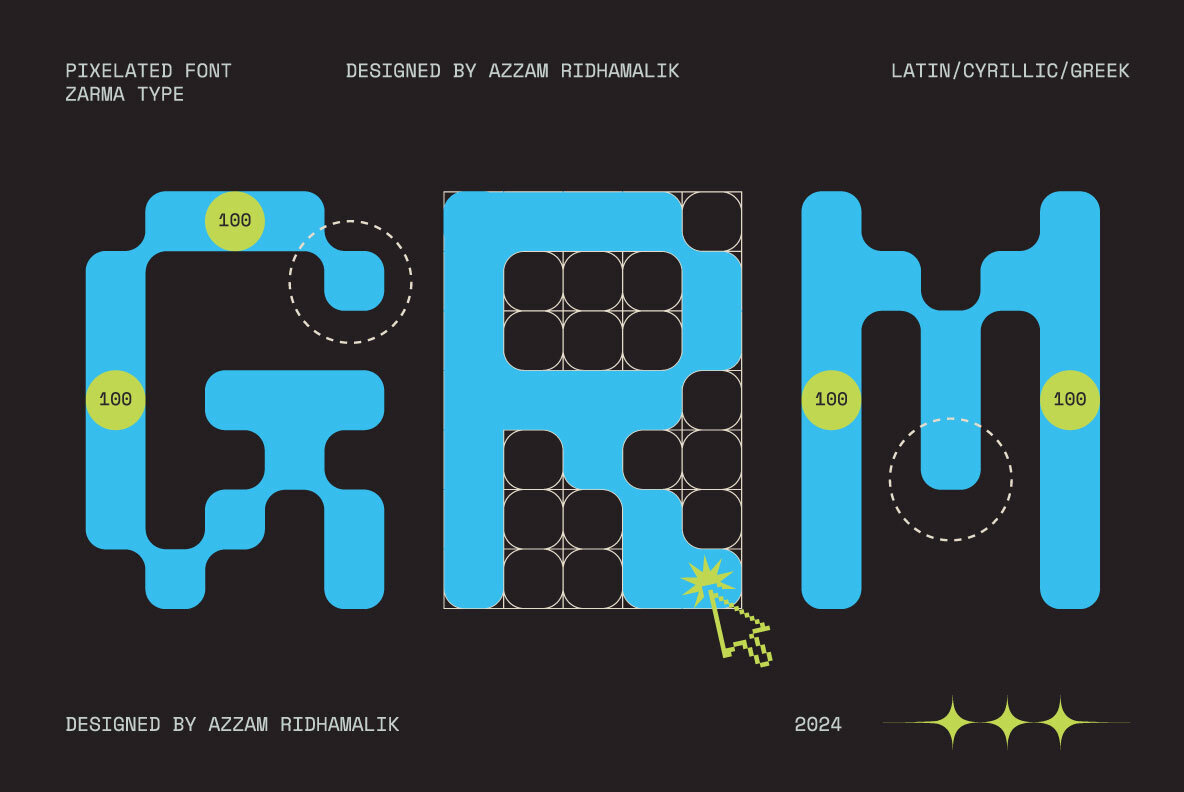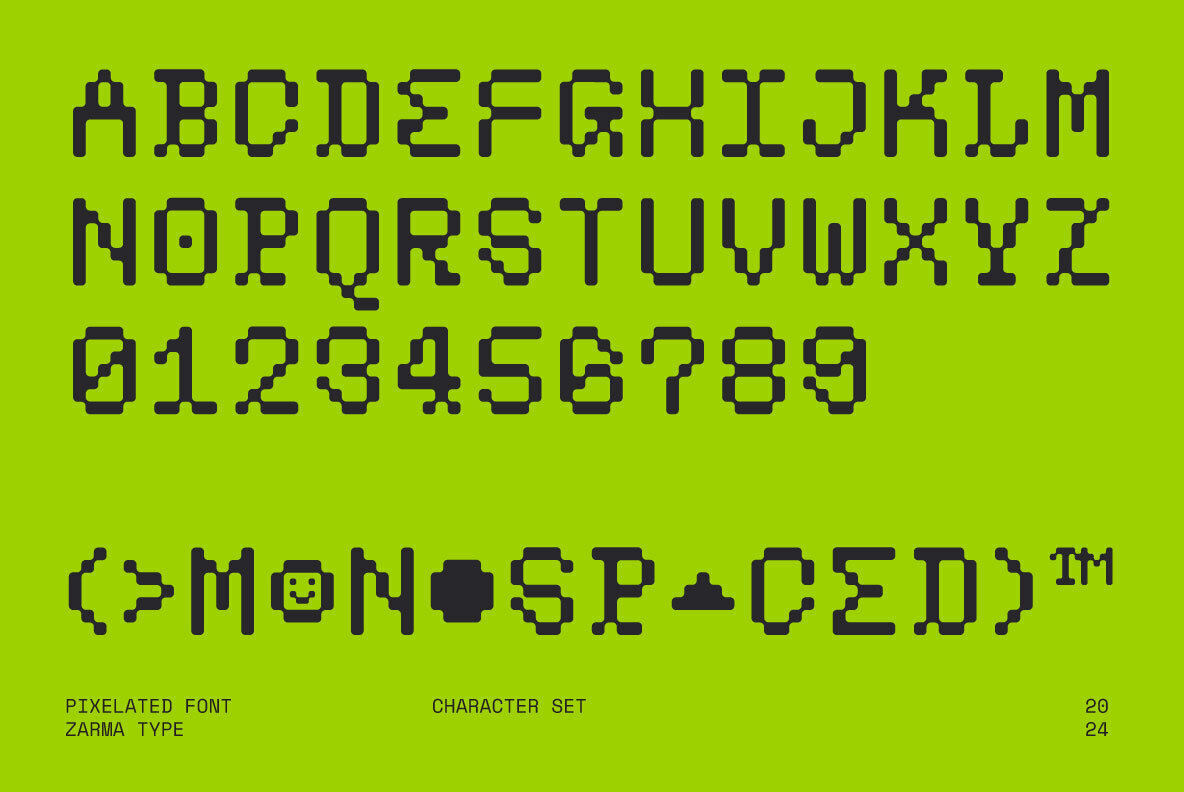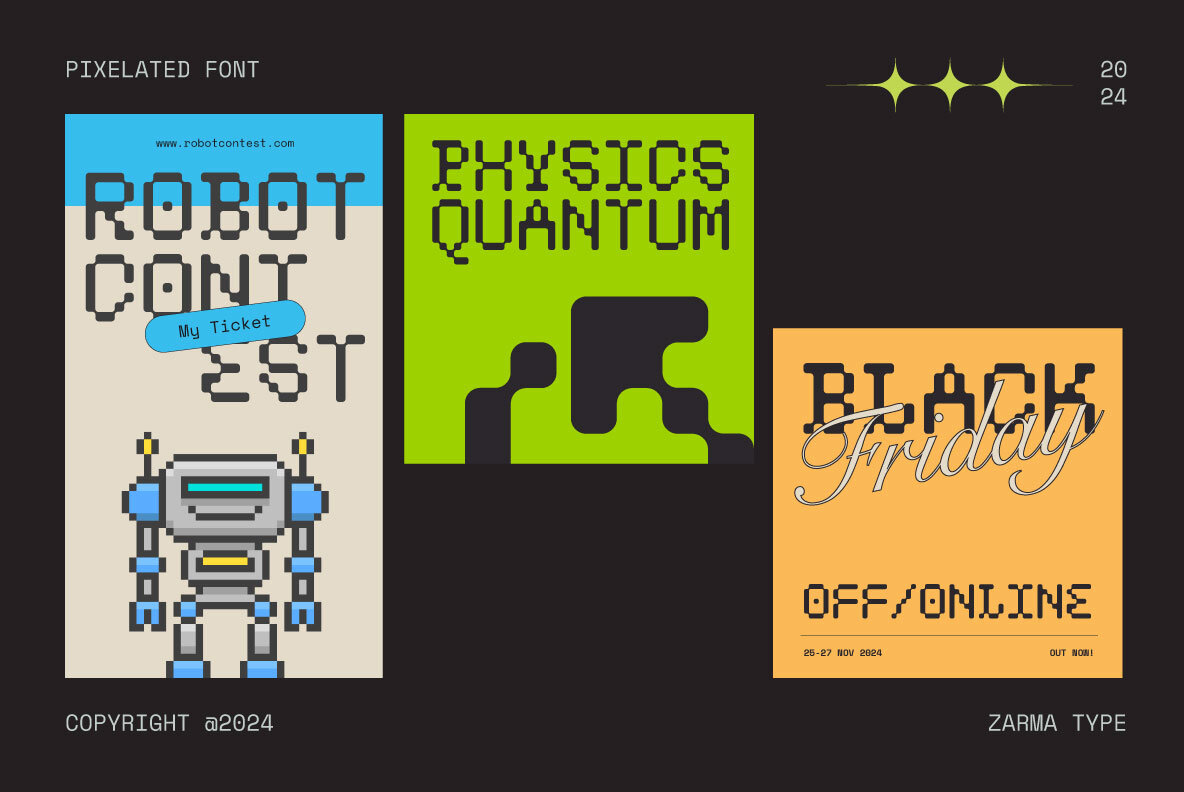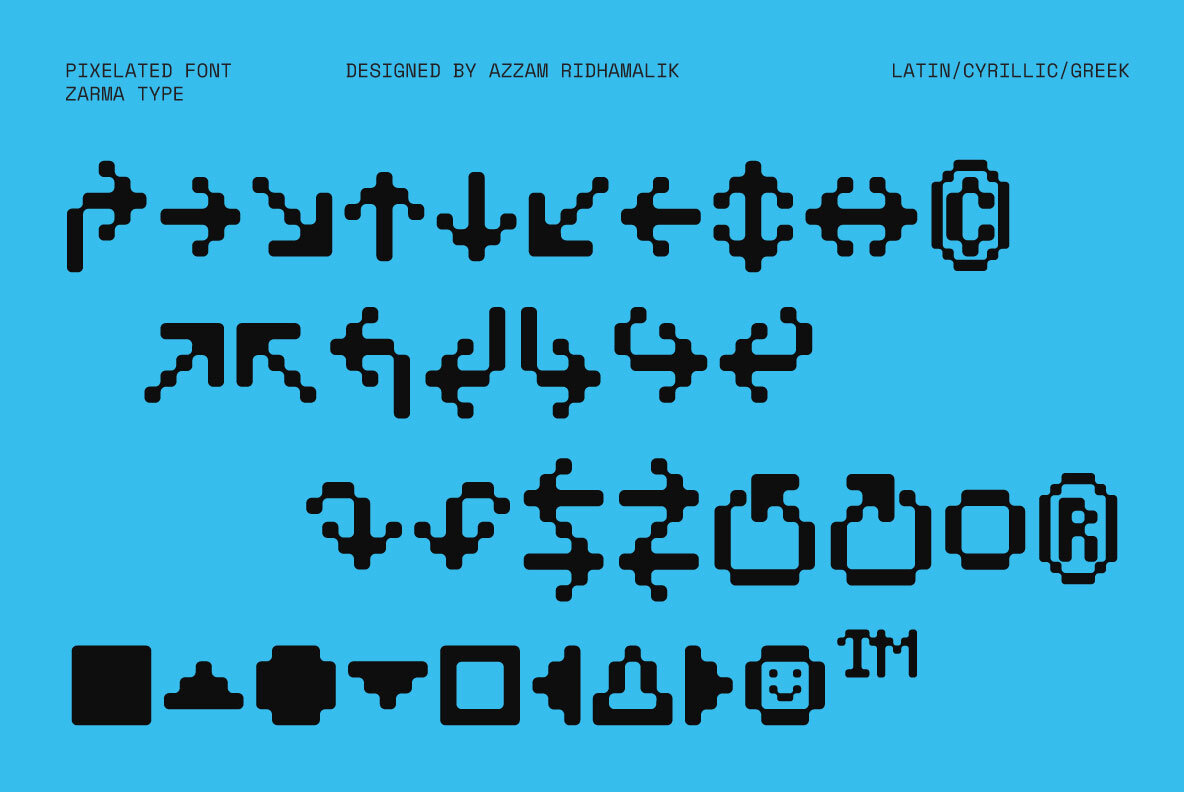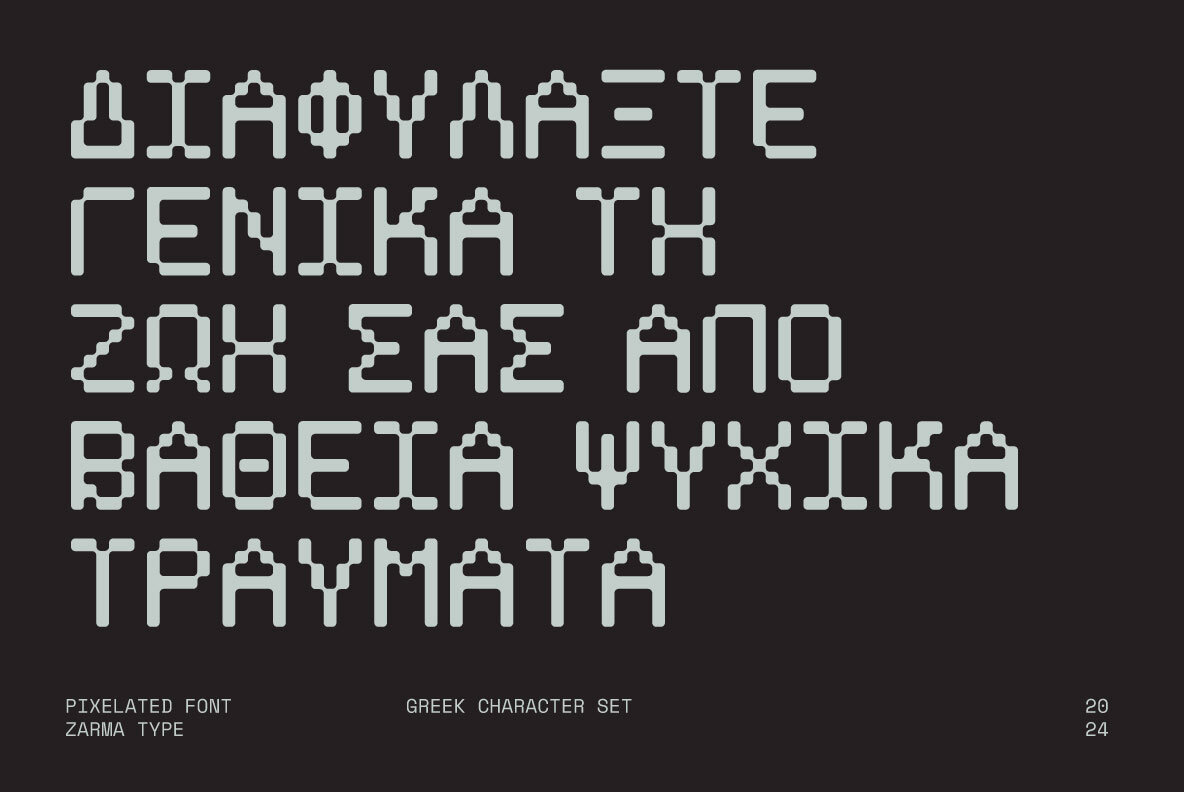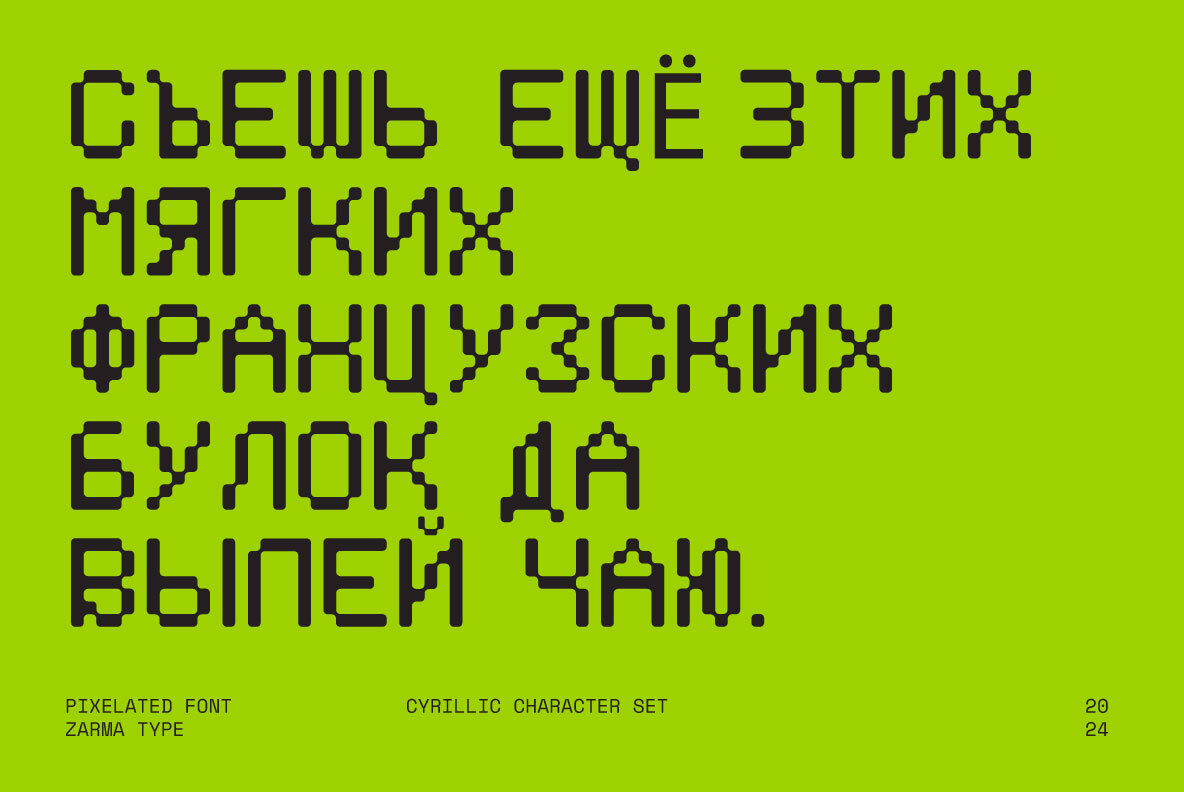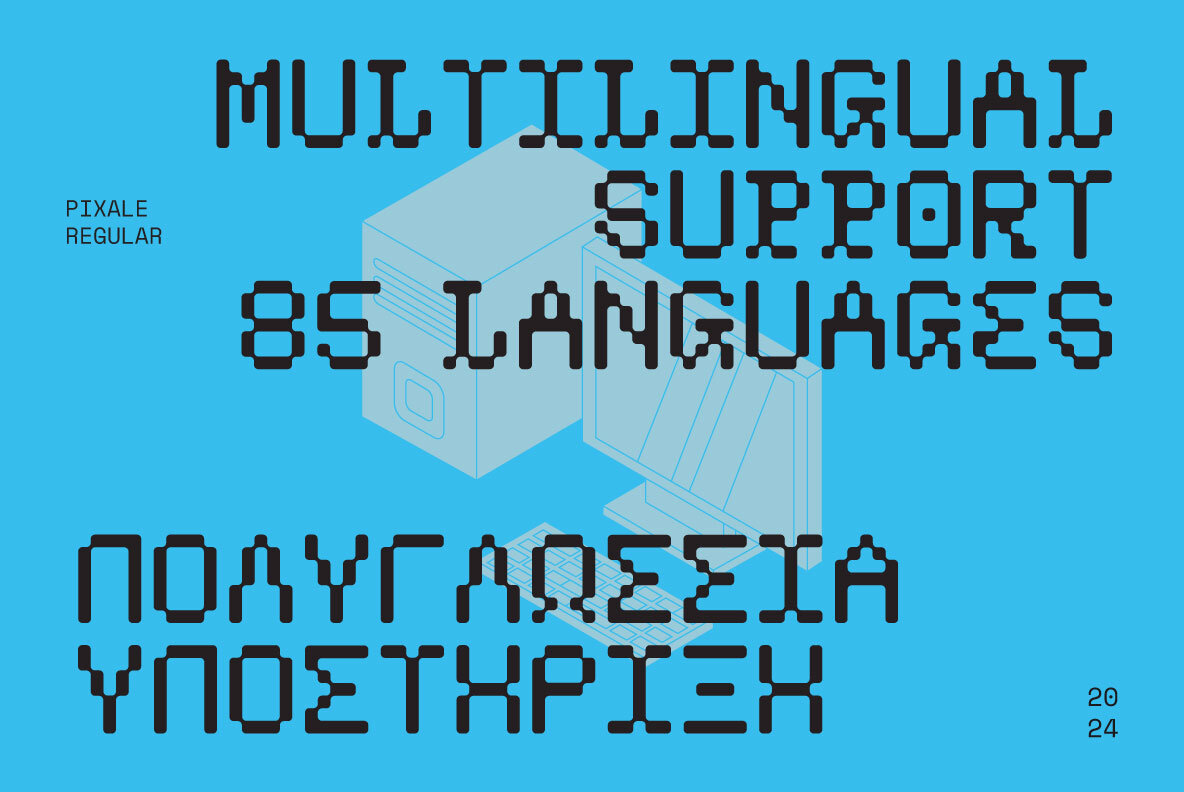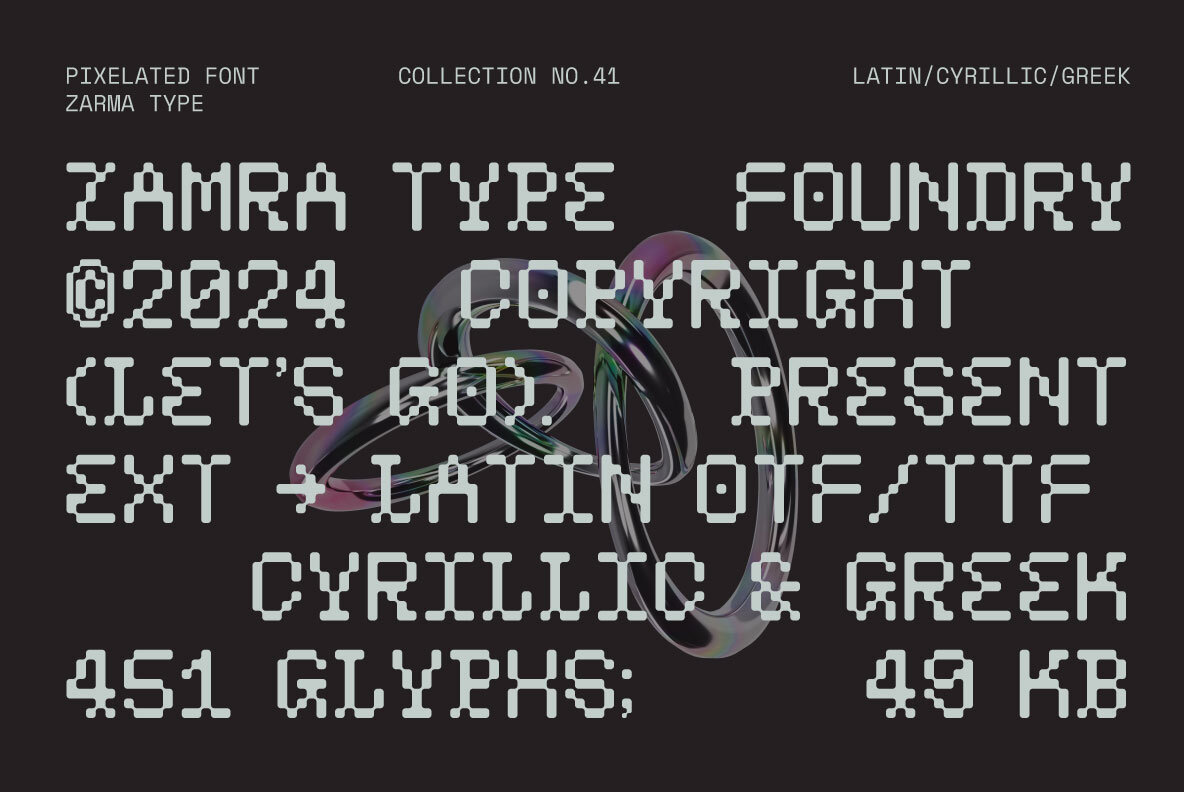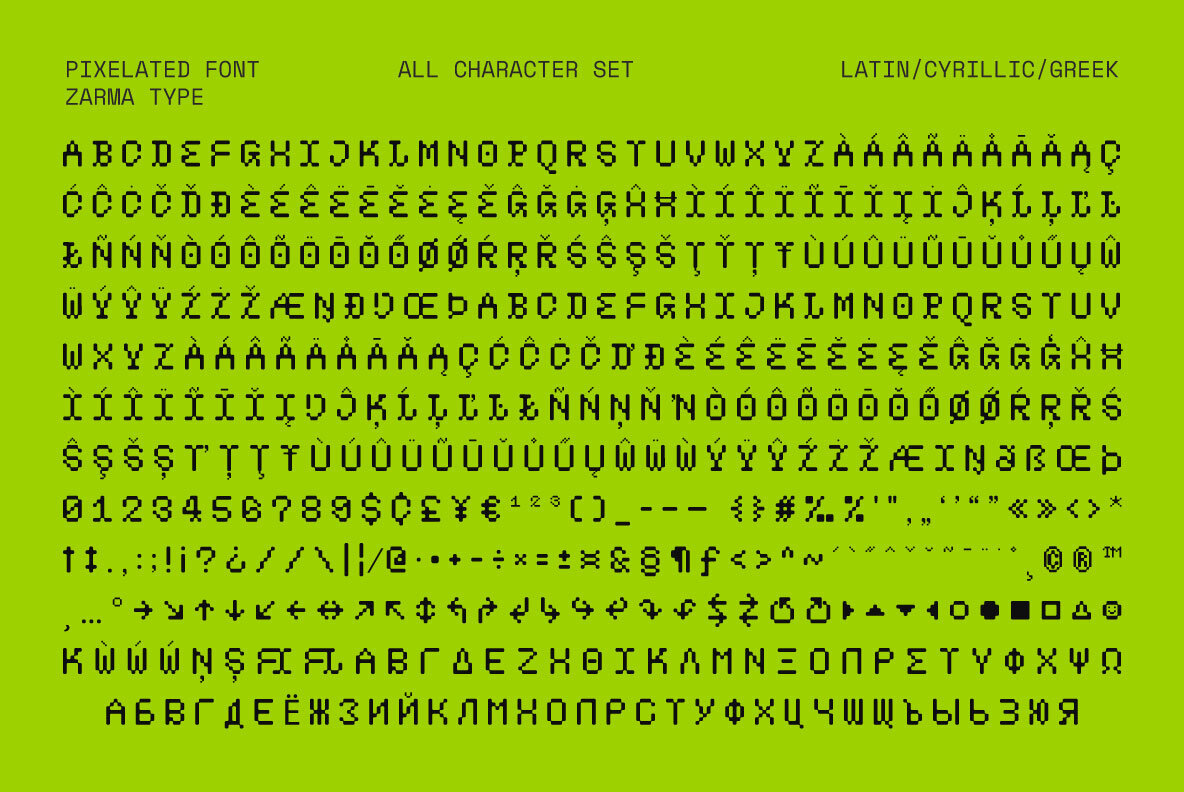
Psygen Font
Psygen
Psygen Font embodies a fusion of retro aesthetics with modern flair, ideal for digital creatives seeking a nostalgic yet contemporary edge. Its pixel-perfect precision offers sharp typography, making it a superb choice for gaming interfaces, tech branding, and digital media ventures. Psygen's bold and playful demeanor elegantly bridges classic gaming culture with current design trends. Psygen's distinct pixel style gracefully adapts to various creative demands, from eye-catching posters to immersive gaming UIs and contemporary branding projects. It transcends a mere typeface, standing as a testament to creativity that injects a dynamic and lively pixel-perfect look into any design endeavor.Psygen Font: A Modern Twist on Retro Pixels